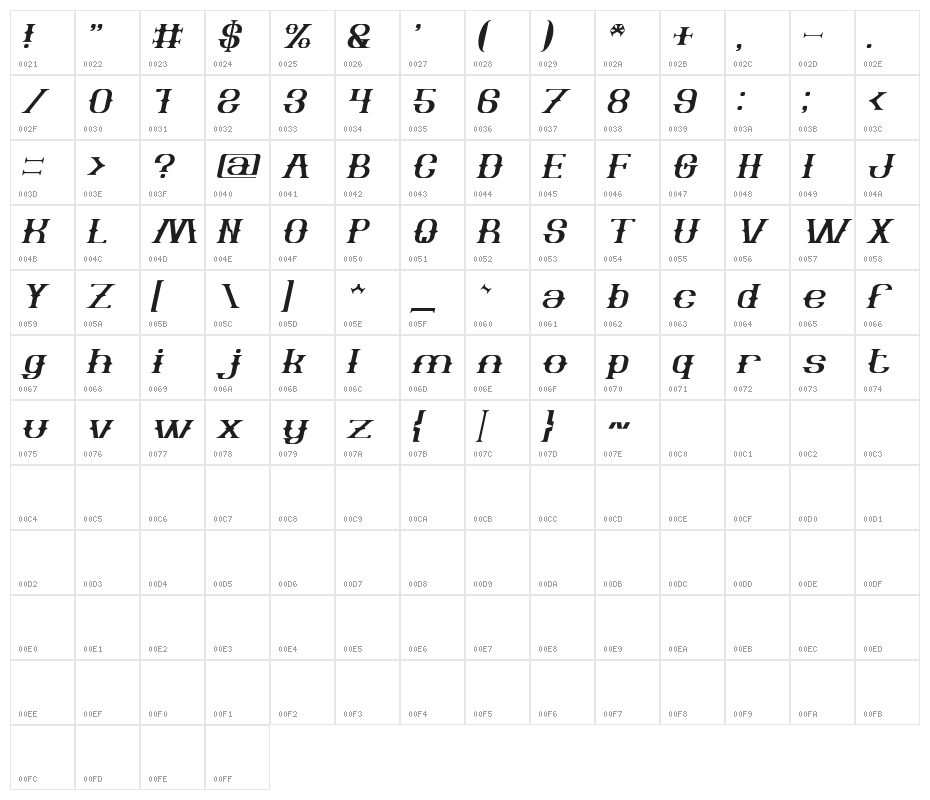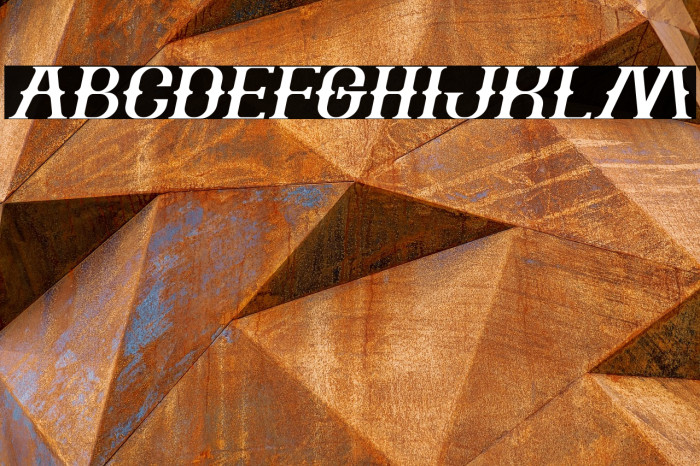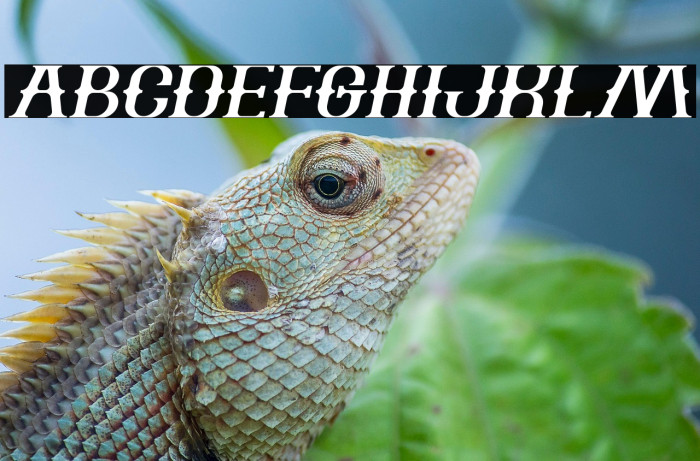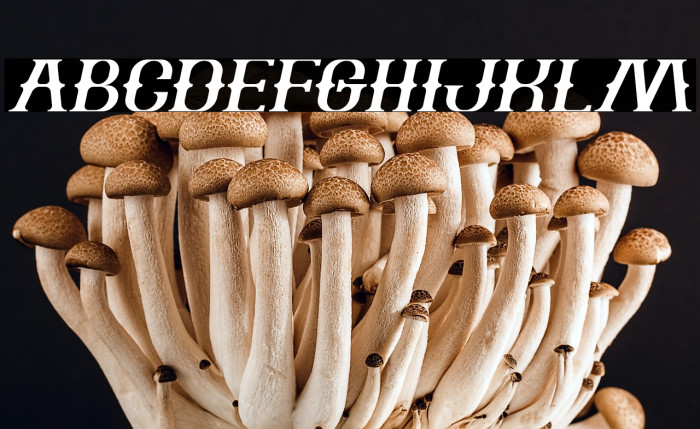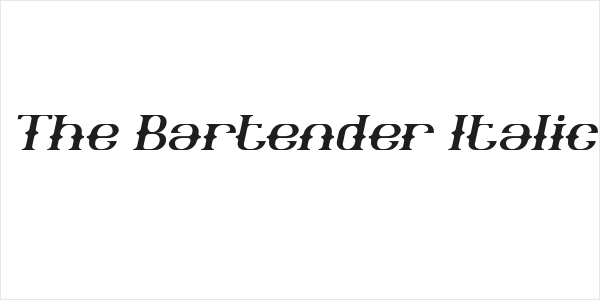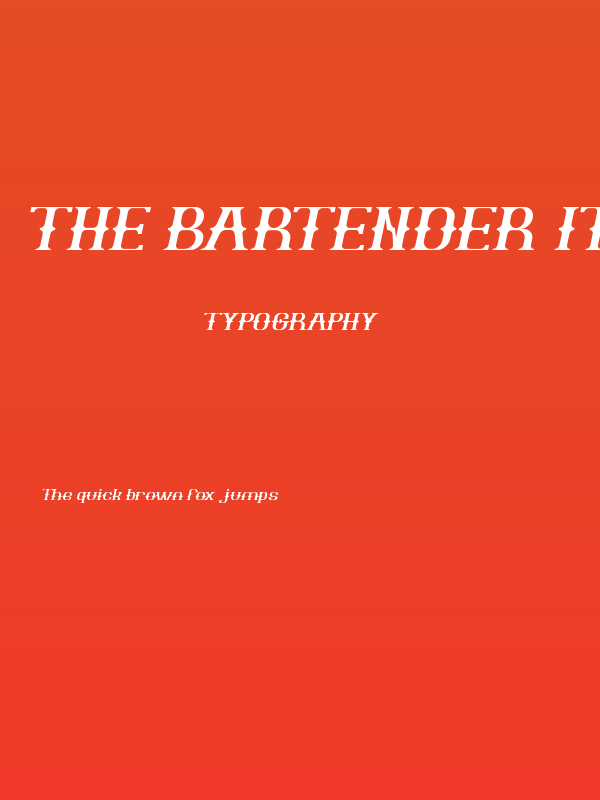
The Bartender Italic Font
The Bartender Italic Description
This font features a bold and dynamic style with a distinct italic slant, giving it a sense of motion and energy. The characters are designed with a high contrast between thick and thin strokes, adding to its dramatic appearance. The serifs are pronounced, contributing to its classic yet modern aesthetic. The uppercase letters are particularly striking, with a unique curvature that sets them apart. The lowercase letters maintain a consistent style, ensuring readability while retaining the font's distinctive flair. The numerals and special characters are crafted to match the overall design, making this font versatile for various applications.
| Proposed Projects | Ideal for branding, headlines, posters, and any project requiring a bold, elegant touch. |